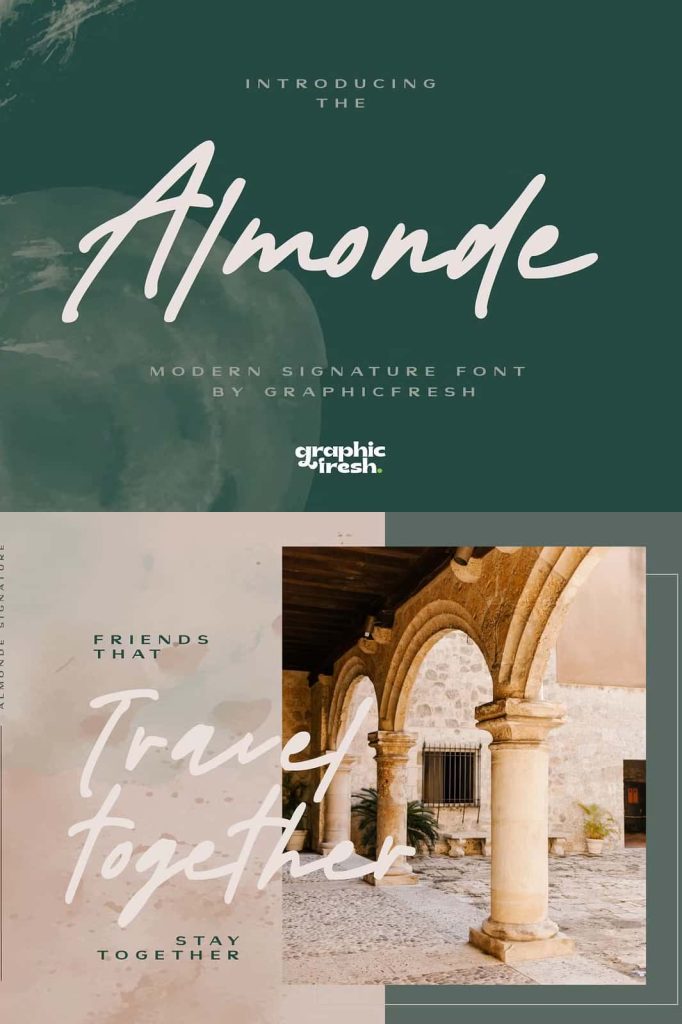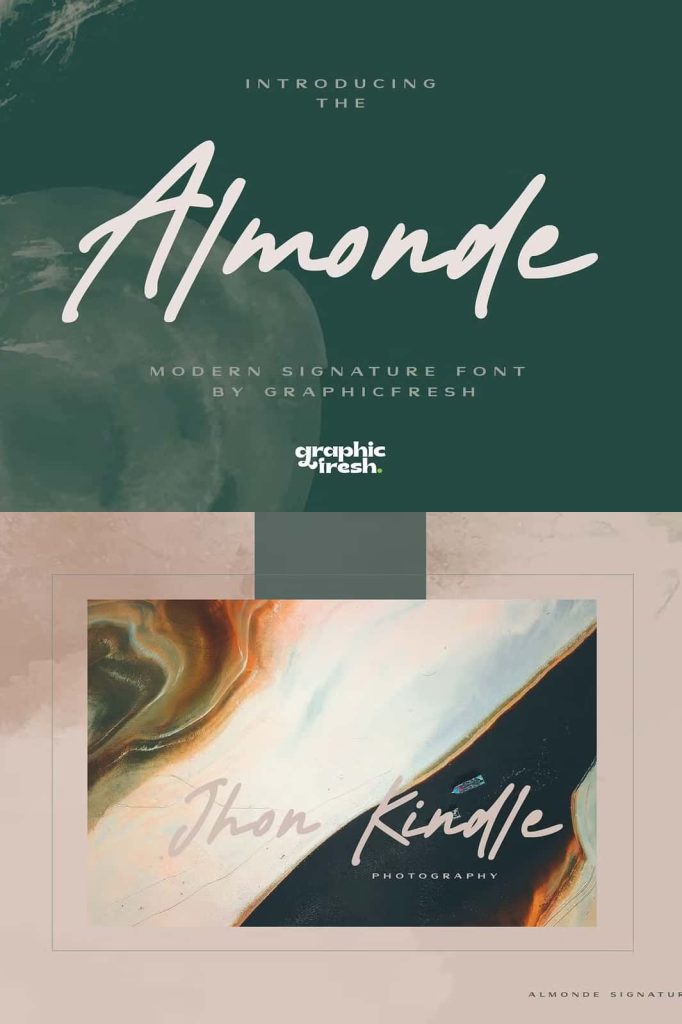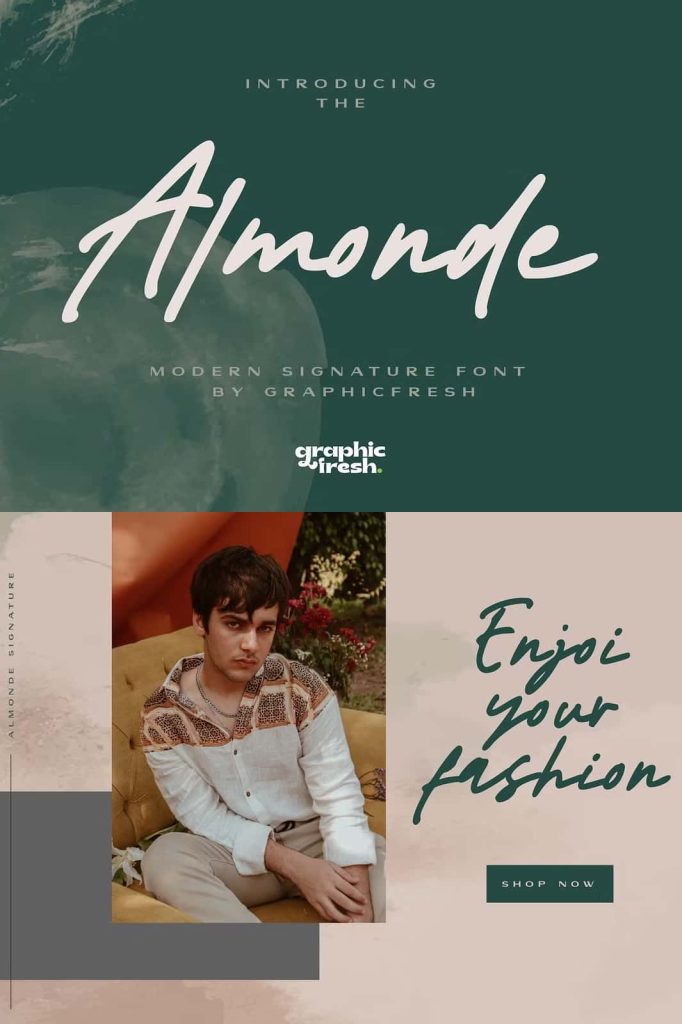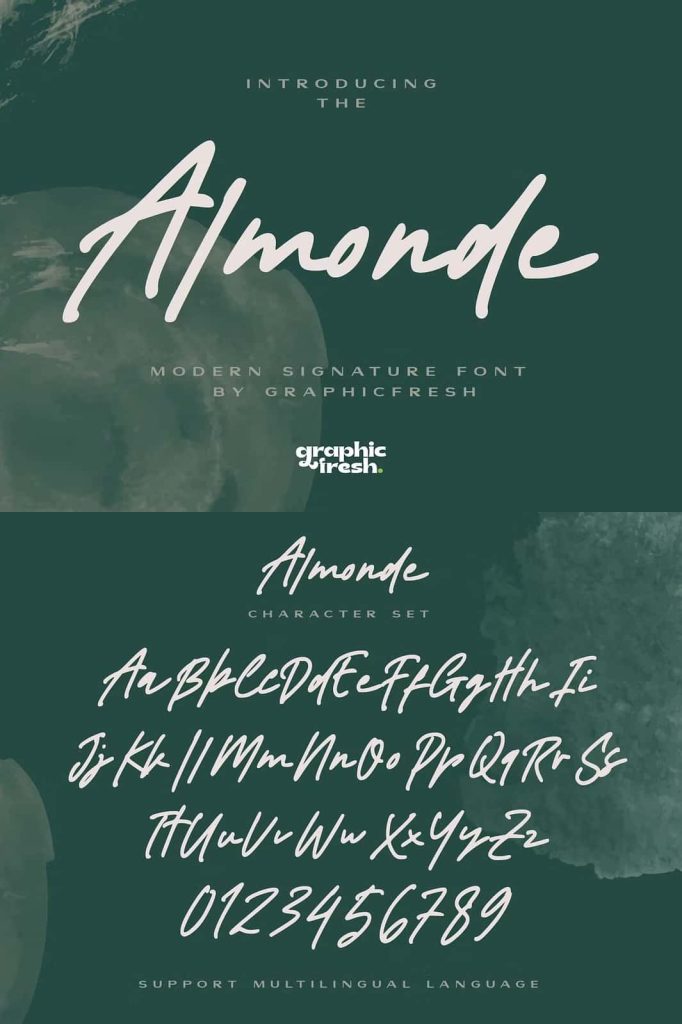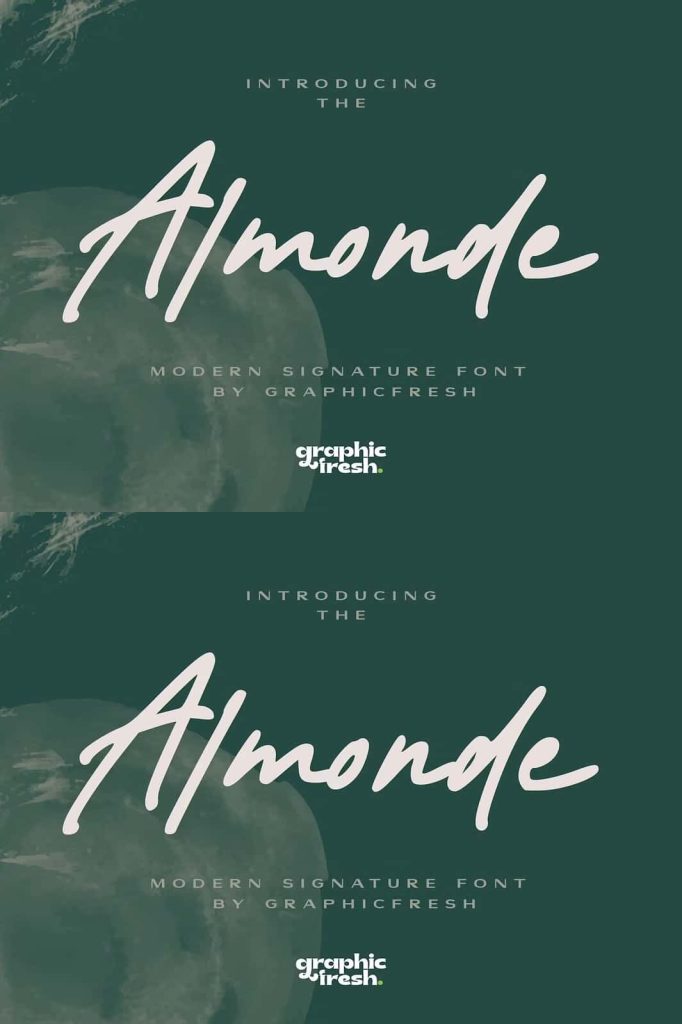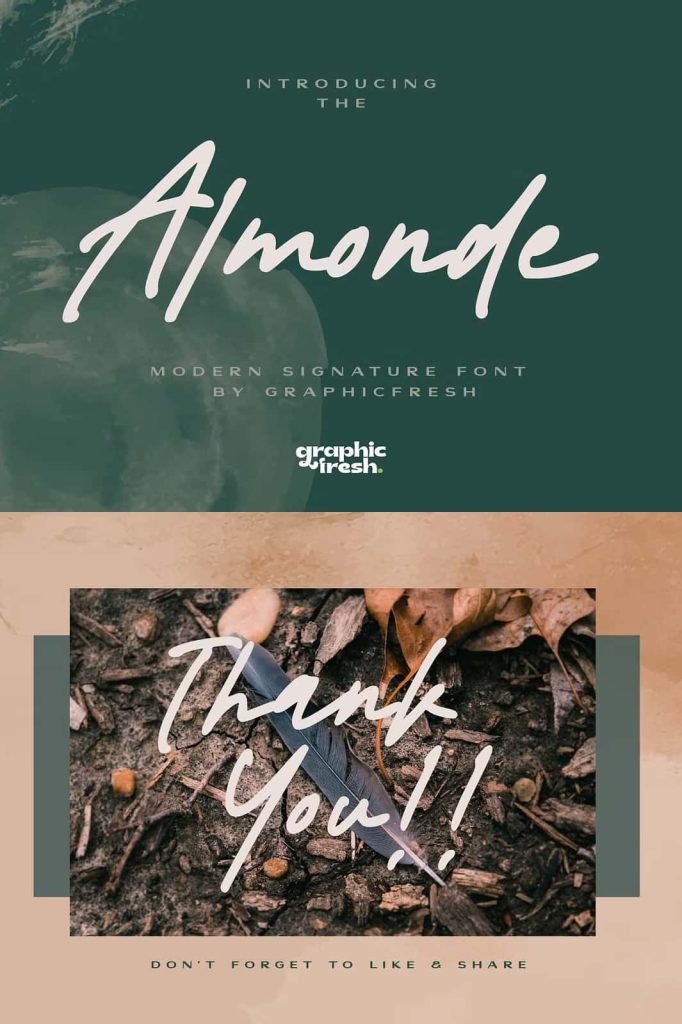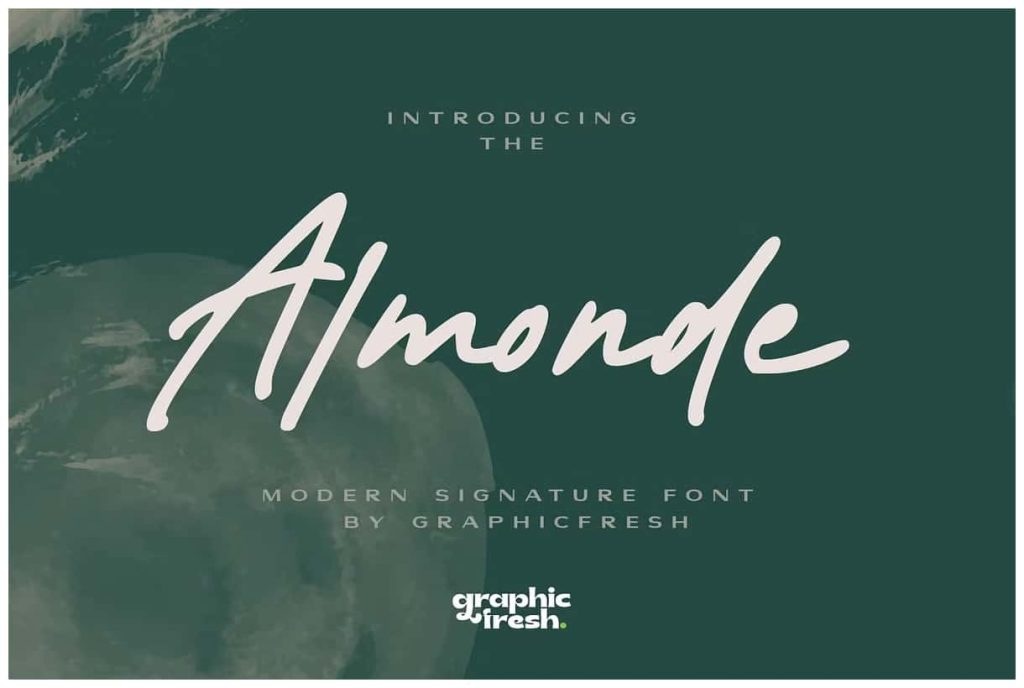
Almonde – Modern Signature FontleastedMarch 23, 2025Fonts Almonde – Modern Signature Font. It comes with an elegant and modern style which is perfect to make any design stand out! Download